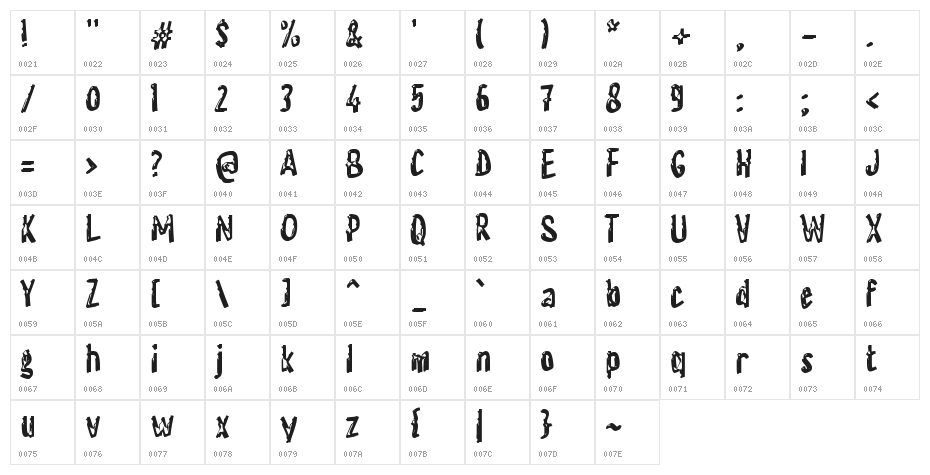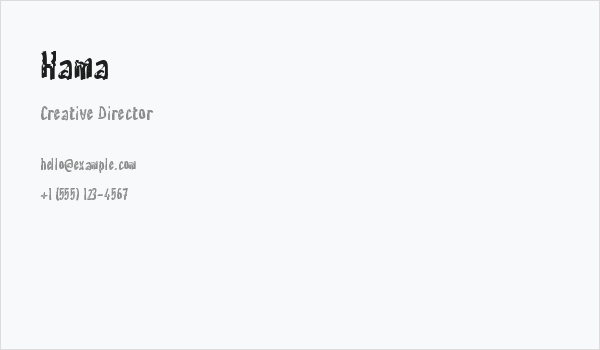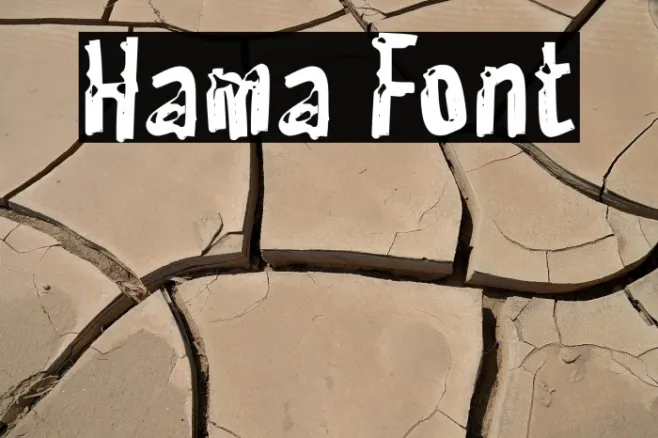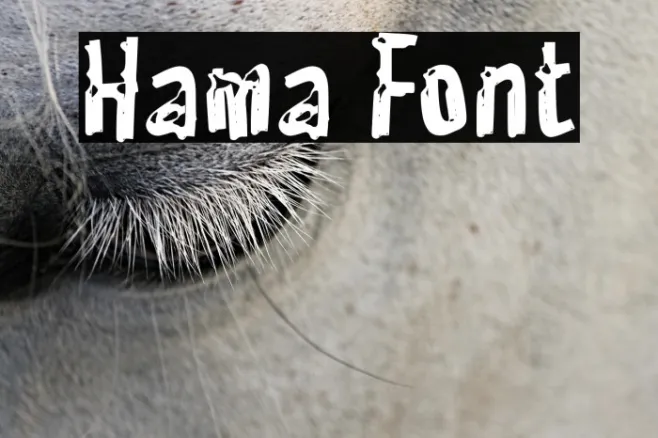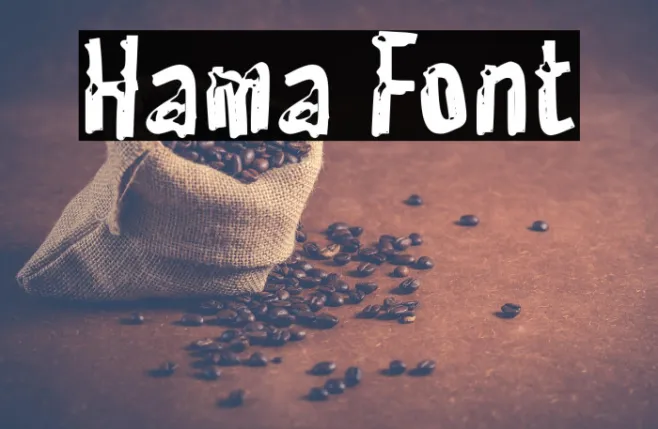
Hama Font
Hama Description
This font features a bold, distressed style with a hand-drawn appearance. The letters are irregular and have a rough texture, giving them a grunge or urban feel. The uppercase and lowercase letters maintain a consistent style, with exaggerated serifs and uneven lines that add to the font's unique character. The numbers and special characters follow the same design, ensuring a cohesive look across all text elements. This font is ideal for projects that require a bold statement or an edgy, artistic touch.
| Overall Style | Grunge, Urban, Artistic |
| Proposed Projects | Perfect for album covers, posters, streetwear branding, and edgy graphic designs. |